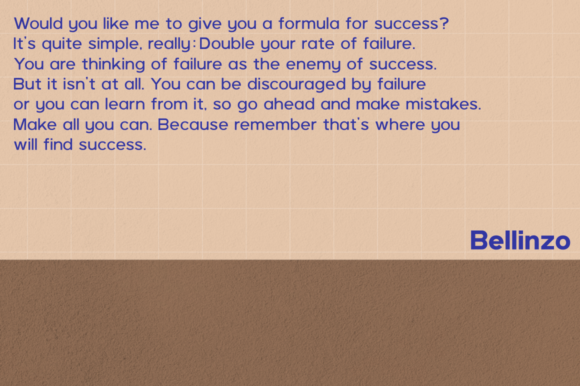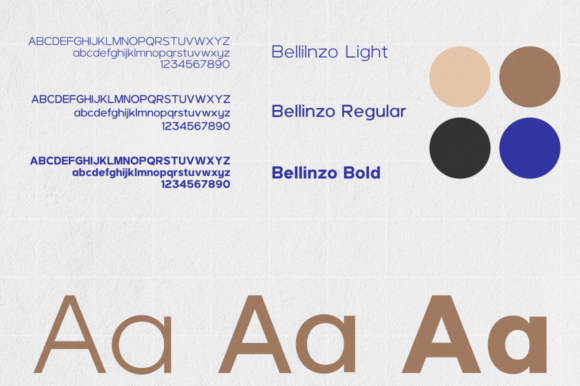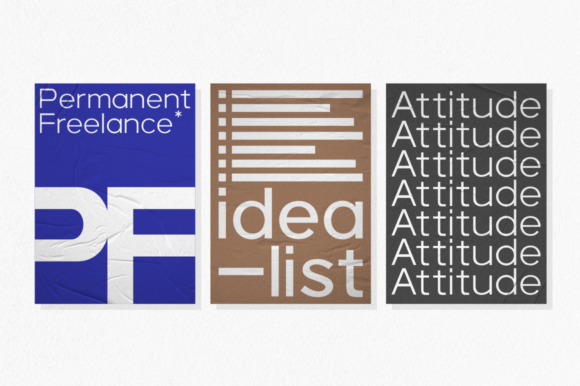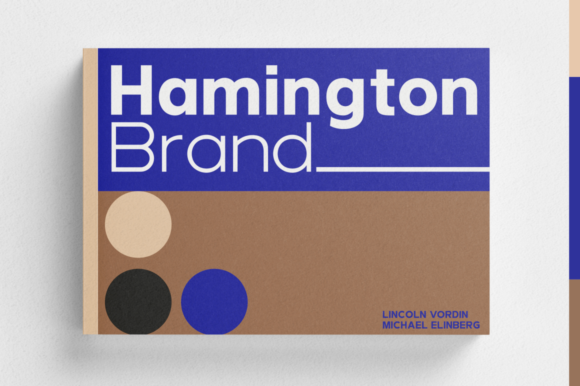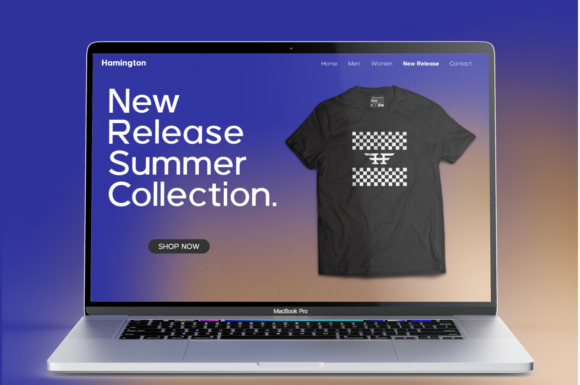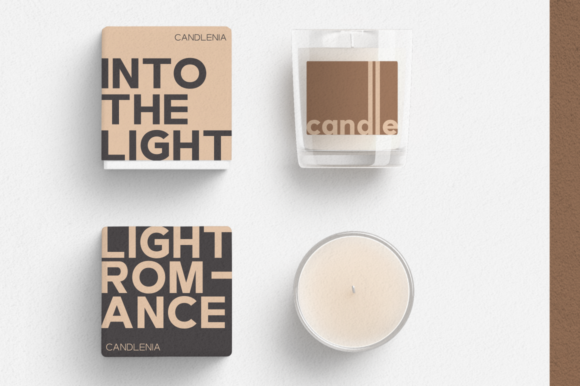
Bellinzo Font: Elevate Your Designs with a Minimal and Neat Sans Serif
Bellinzo is a stylish and versatile sans serif font that has been making waves in the design community. Its minimal and neat aesthetic makes it an excellent choice for a wide range of projects, from branding and advertising to packaging and digital media. In this article, we’ll dive into the world of Bellinzo Font and explore its features, benefits, and uses.
The Beauty of Minimalism
Bellinzo’s design is characterized by its simplicity and elegance. The font’s clean lines, rounded edges, and balanced proportions create a visually appealing and harmonious look that is both modern and timeless. The minimalistic approach of Bellinzo makes it an excellent choice for designers who want to convey a sense of sophistication and professionalism in their work.
One of the standout features of Bellinzo Font is its incredible versatility. Its neutral design allows it to be paired with a wide range of styles, from bold and vibrant to soft and pastel. Whether you’re working on a logo, brochure, or social media graphics, Bellinzo can easily be matched to your creative vision. The font’s adaptability makes it an excellent addition to any designer’s toolkit.
Key Features of Bellinzo Font
- Minimal and neat sans serif design: Bellinzo’s clean and simple aesthetic makes it perfect for a wide range of applications.
- Highly legible: The font’s clear and balanced design ensures that your text is easy to read, even at small sizes.
- Versatile and adaptable: Bellinzo can be paired with a variety of styles and design elements.
- Supports multiple languages: The font includes support for multiple languages, making it an excellent choice for global brands.
Uses of Bellinzo Font
Bellinzo Font can be used in a wide range of design projects, including:
- Branding and logos: Create a professional and memorable brand identity with Bellinzo.
- Advertising and marketing materials: Use Bellinzo to create eye-catching ads, brochures, and flyers.
- Packaging design: Add a touch of elegance and sophistication to your product packaging.
- Digital media: Use Bellinzo in your website designs, social media graphics, and mobile apps.
Tips for Using Bellinzo Font
To get the most out of Bellinzo Font, here are a few tips to keep in mind:
- Experiment with font sizes: Bellinzo looks great at a variety of font sizes, from large headings to small body text.
- Play with color: Bellinzo’s neutral design makes it easy to pair with a wide range of colors and styles.
- Use it with other fonts: Bellinzo can be paired with other fonts to create a unique and visually appealing design.
Bellinzo Font is a stylish and versatile sans serif font that is perfect for designers and crafters looking to elevate their designs. Its minimal and neat aesthetic makes it an excellent choice for a wide range of projects, from branding and advertising to packaging and digital media. With its high legibility, adaptability, and support for multiple languages, Bellinzo is an excellent addition to any designer’s toolkit. So why wait? Add Bellinzo to your creative ideas and notice how it makes them stand out!